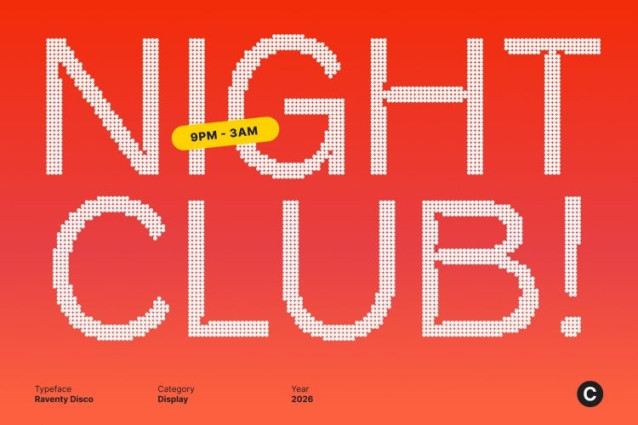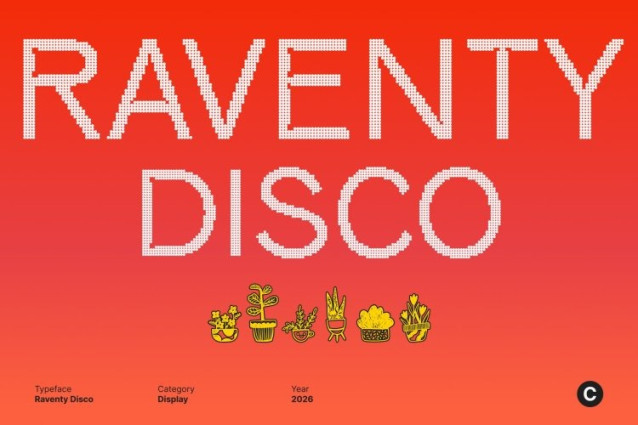
Raventy Disco Font
Raventy Disco Font This is a modern sans serif font enhanced with expressive inktrap details and a subtle disco attitude. Built on clean, contemporary foundations, it balances professionalism with visual excitement bringing a refined sense of rhythm and movement inspired by glowing lights and energetic atmospheres.
Inktrap Details with Stylish Character
The inktrap construction adds depth and personality to each letterform, creating distinctive inner shapes that feel technical yet playful. In this font, these details catch the eye like reflections on a dance floor subtle, stylish, and full of character without overwhelming the design.
Professional Look with Festive Energy
Designed for modern branding and communication, this font maintains clarity and structure while introducing a festive, confident vibe. It feels polished and credible, yet lively and expressive ideal for projects that want to feel modern, bold, and alive.
Versatile for Branding, Editorial, and Digital Design
From branding and editorial layouts to web design, posters, and promotional visuals, adapts effortlessly. Its clean sans serif form ensures readability, while the inktrap-disco twist adds visual intrigue that elevates contemporary design systems.